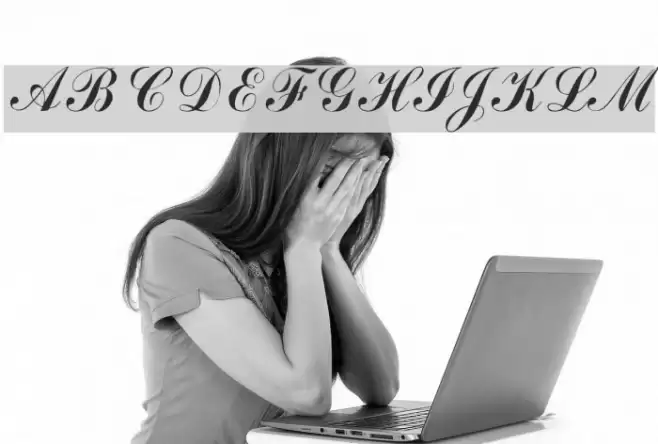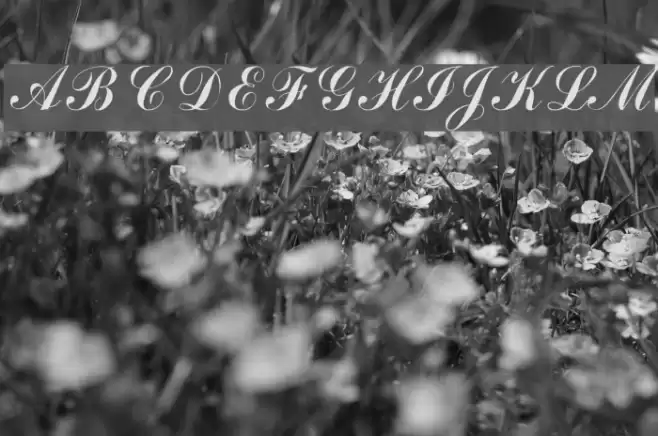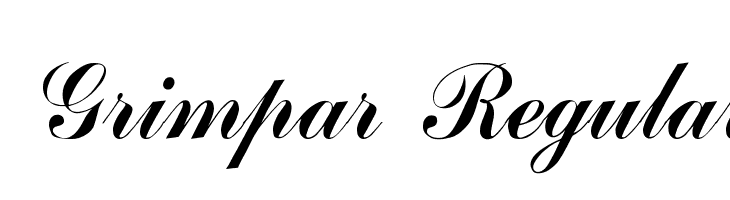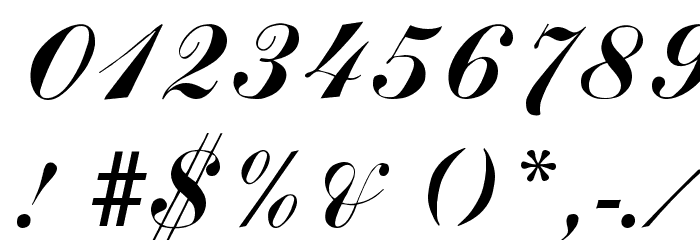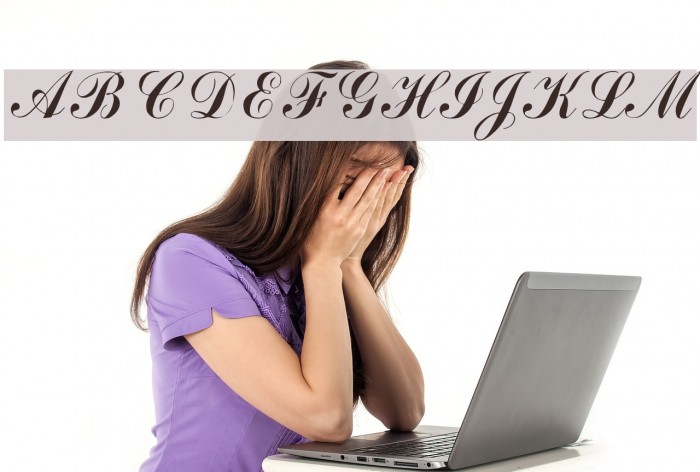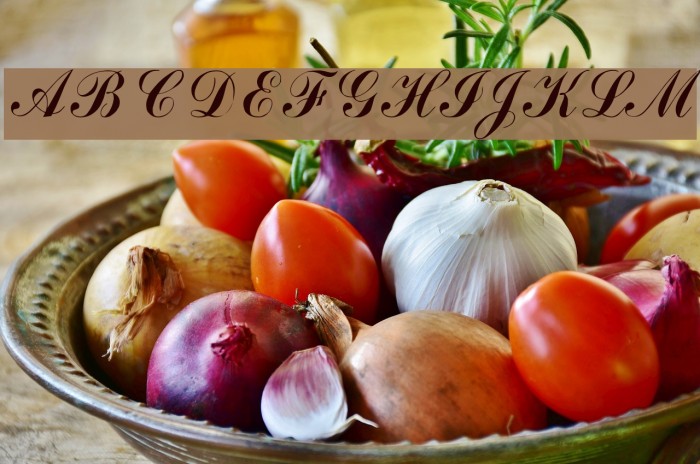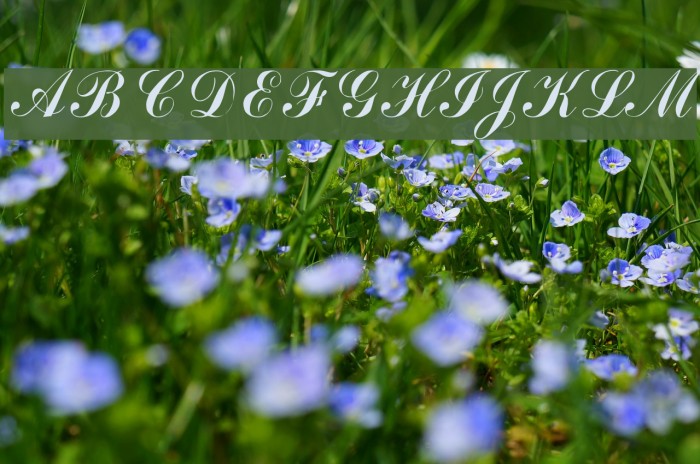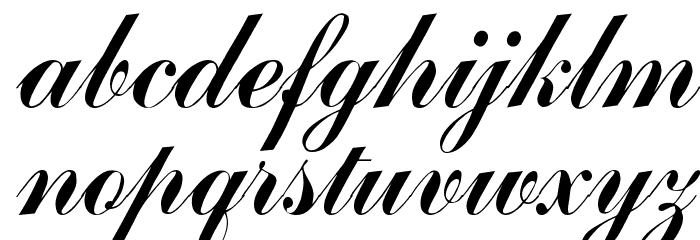
Grimpar Regular Font
Grimpar Regular Description
This font exudes elegance and sophistication with its flowing, cursive style. The characters are intricately designed with smooth curves and delicate flourishes, giving it a refined and classic appearance. The uppercase letters are particularly ornate, featuring elaborate swashes that enhance their decorative appeal. The lowercase letters maintain a consistent style, complementing the uppercase with their graceful loops and tails. The numerals and special characters are equally stylish, ensuring a cohesive look across all text elements. This font's high contrast in stroke thickness adds to its dramatic and eye-catching nature, making it ideal for projects that require a touch of luxury and class.
An elegant, cursive font with high contrast and ornate details from Uncategorized fonts.
- Proposed Projects: Ideal for wedding invitations, luxury branding, elegant logos, and high-end product packaging.
- Overall Style: Classic
- Use Case: Logos, Invitations, Branding